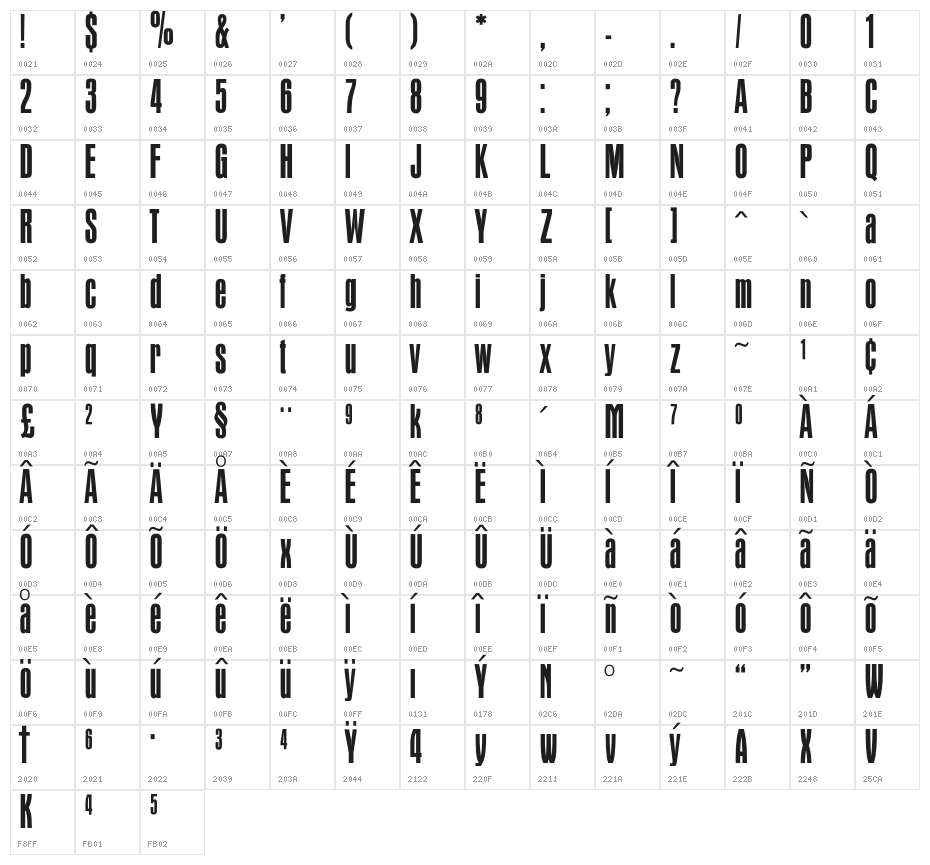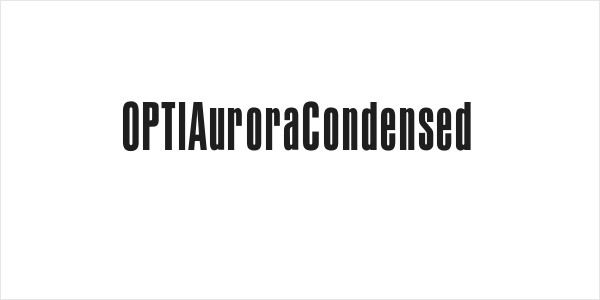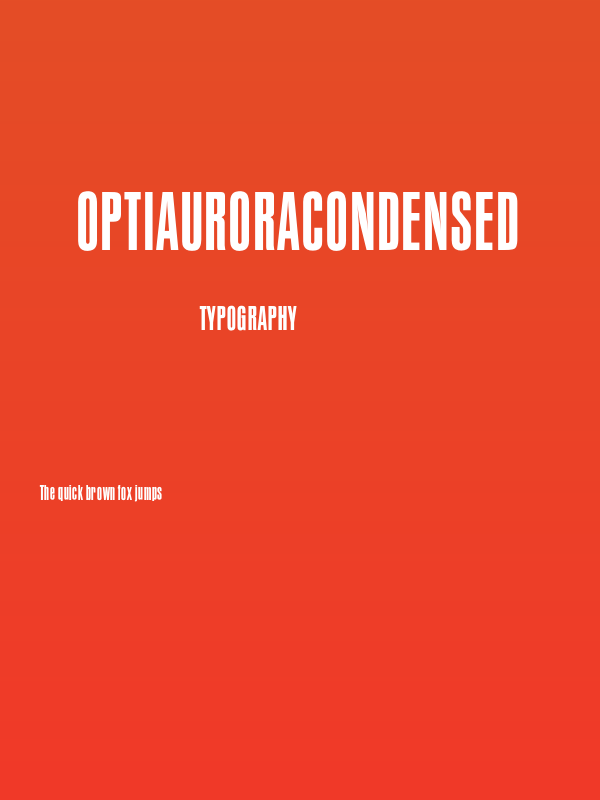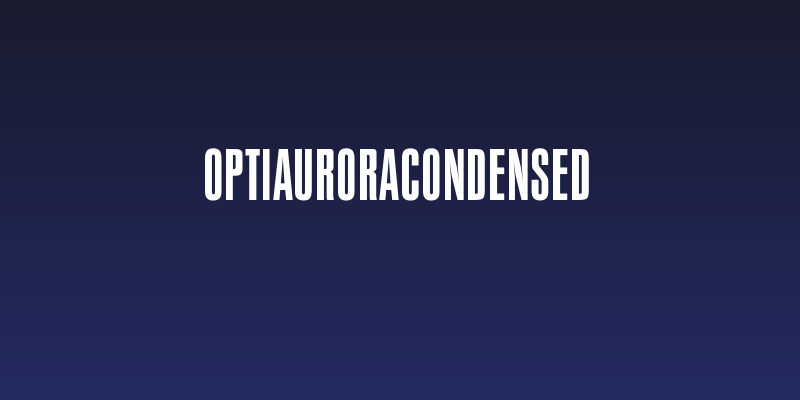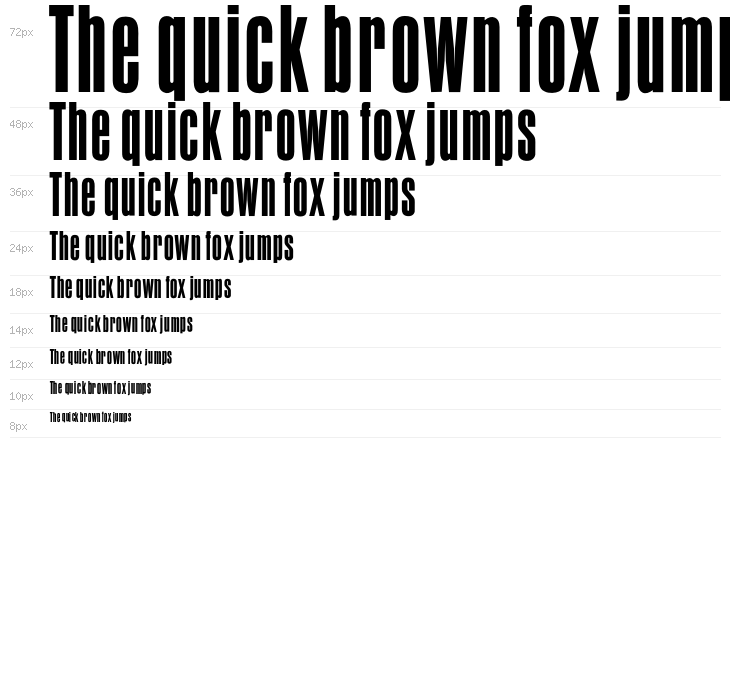
OPTIAuroraCondensed Font
OPTIAuroraCondensed Description
This font features a bold and condensed style, characterized by its tall and narrow letterforms. The uppercase and lowercase letters maintain a consistent height, creating a uniform appearance. The numbers and special characters follow the same condensed style, ensuring a cohesive look across all text elements. The strokes are thick and consistent, providing a strong visual impact. This font is designed to stand out, making it ideal for attention-grabbing headlines and titles. Its modern and sleek design is perfect for contemporary projects that require a bold statement.
| Proposed Projects | Ideal for headlines, posters, advertising, and branding projects that require a strong visual impact. |